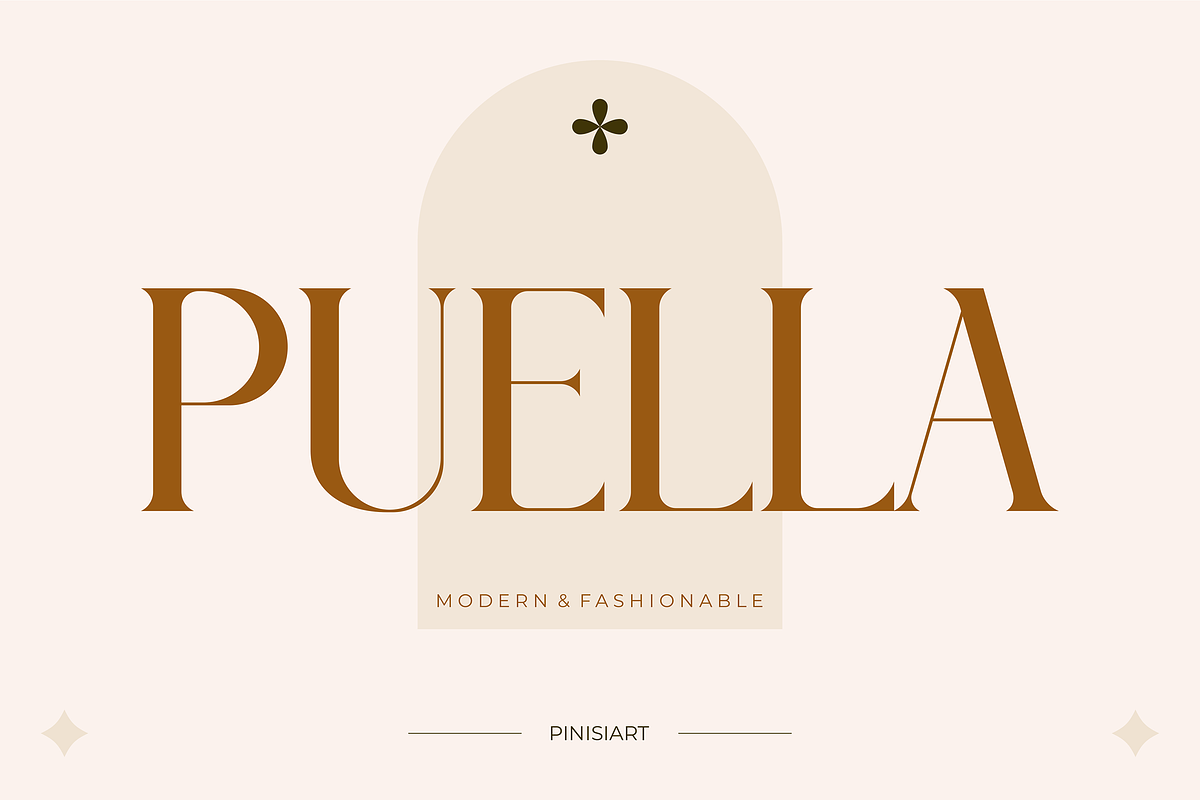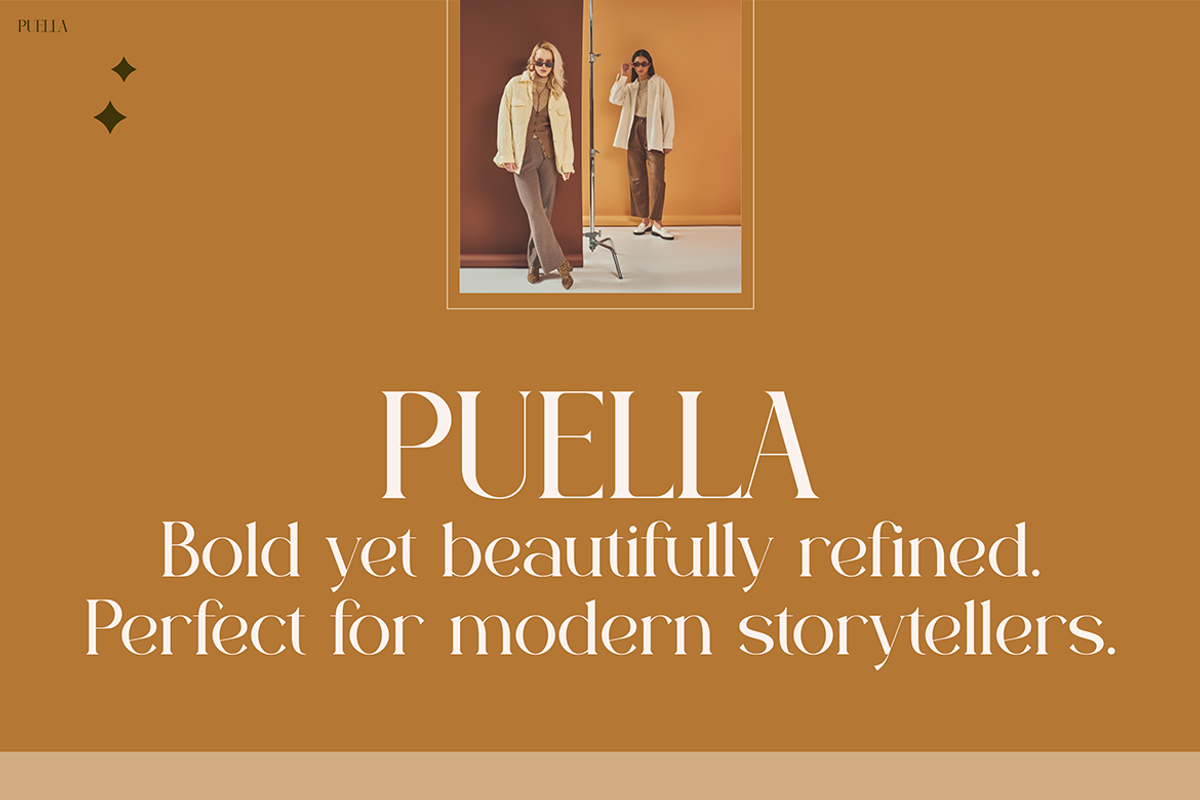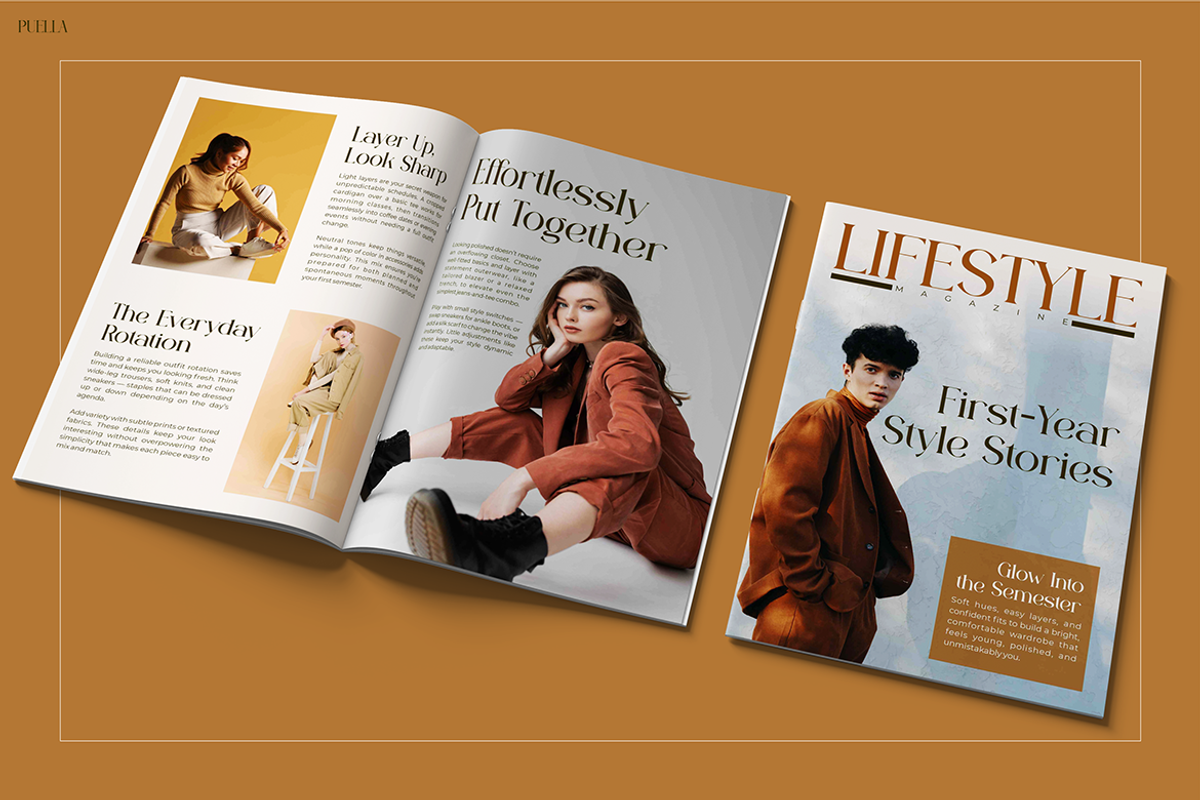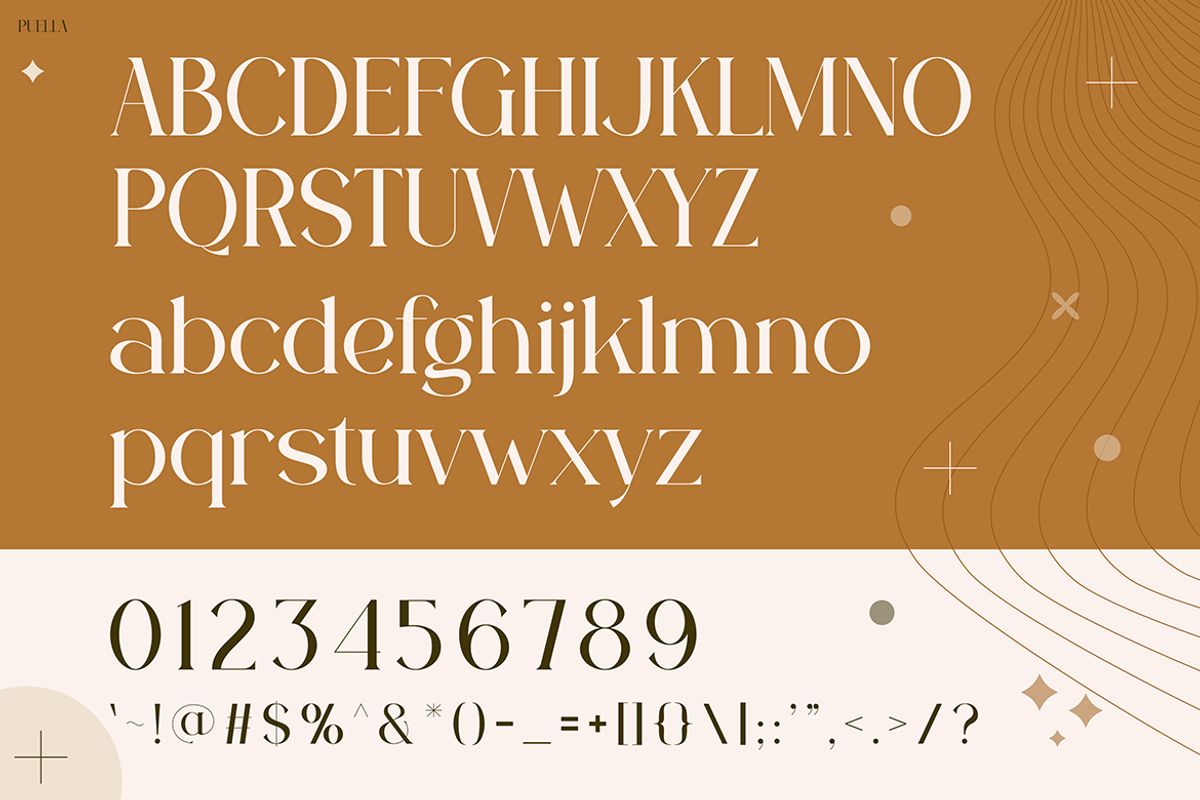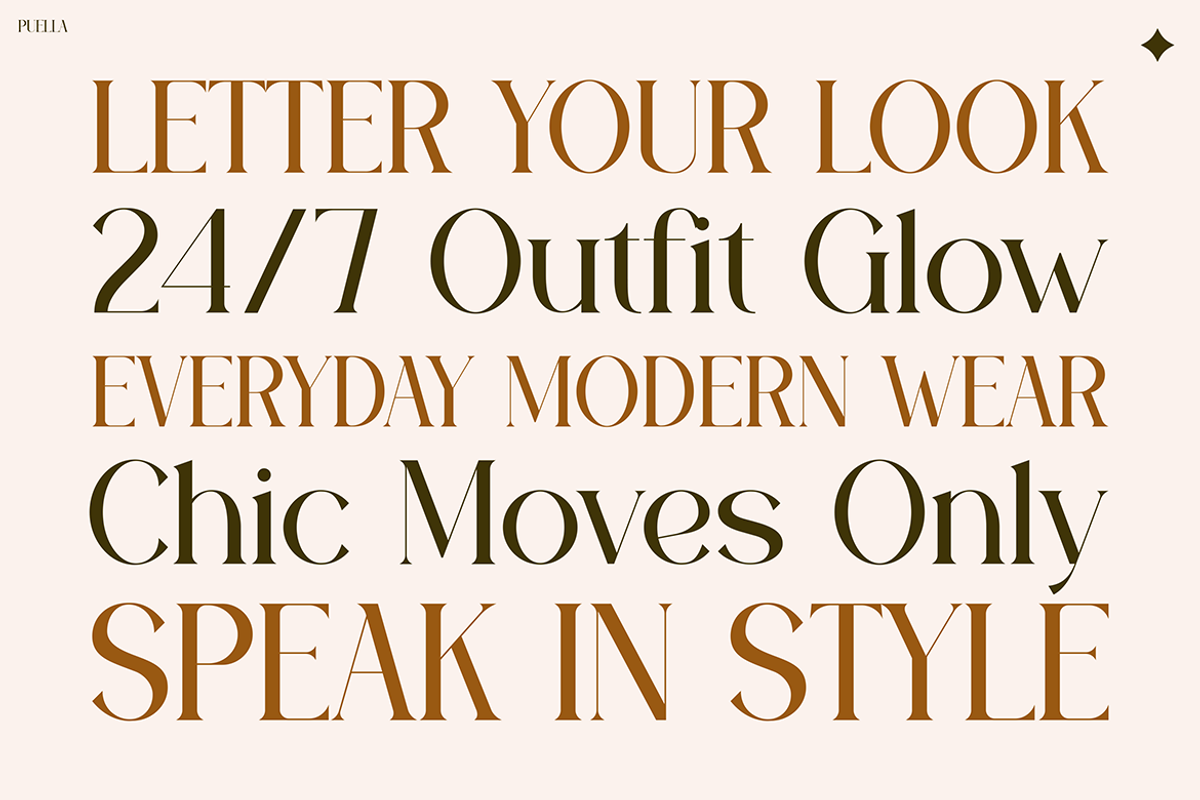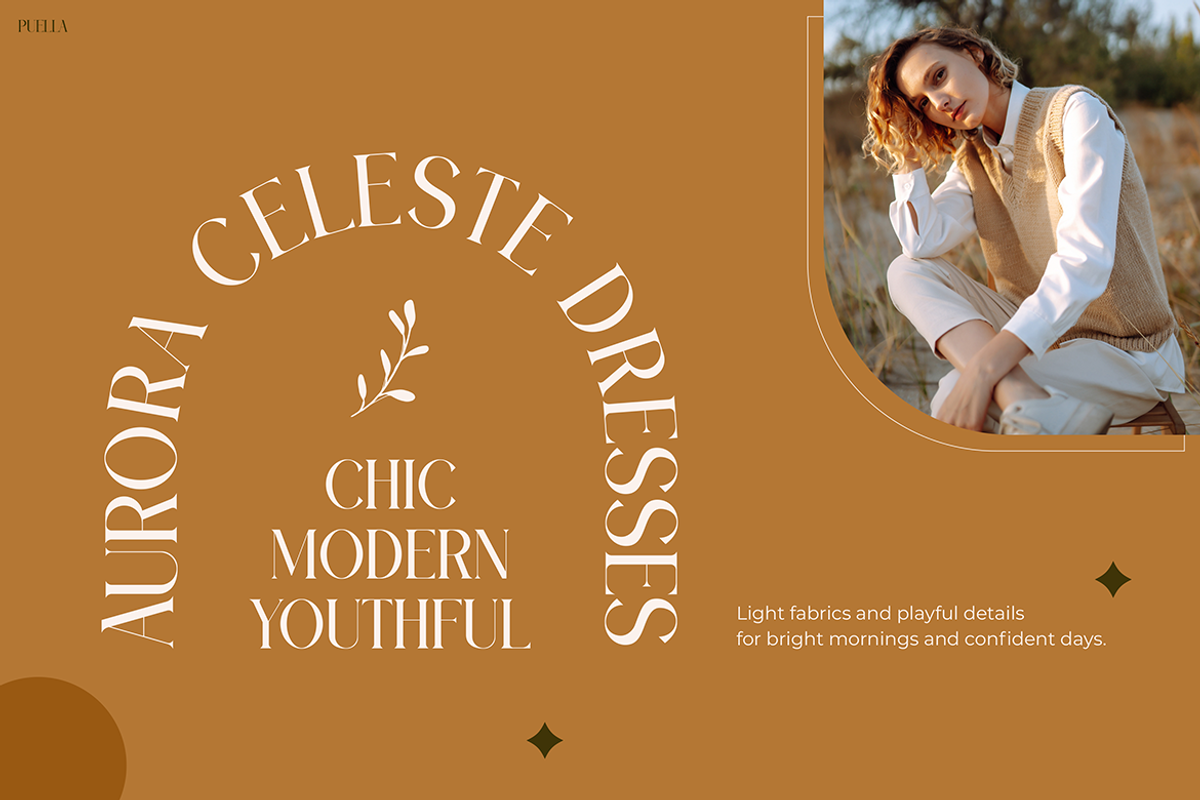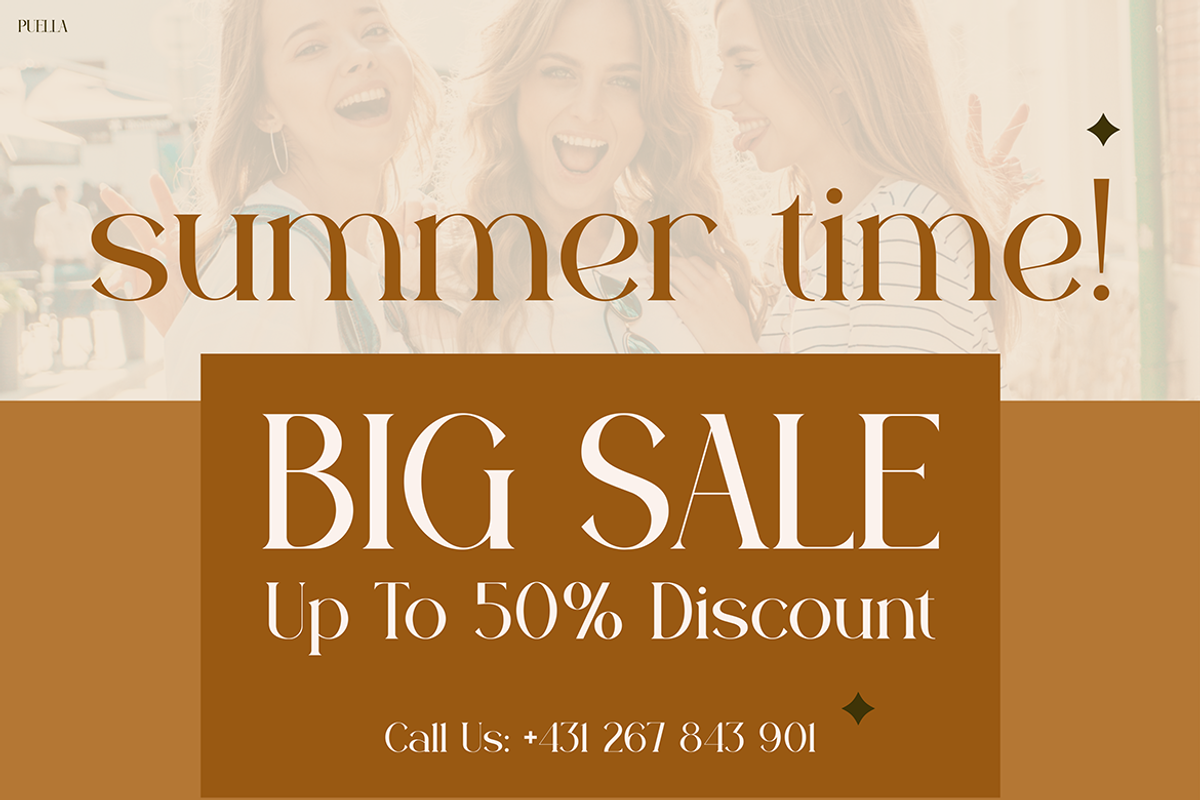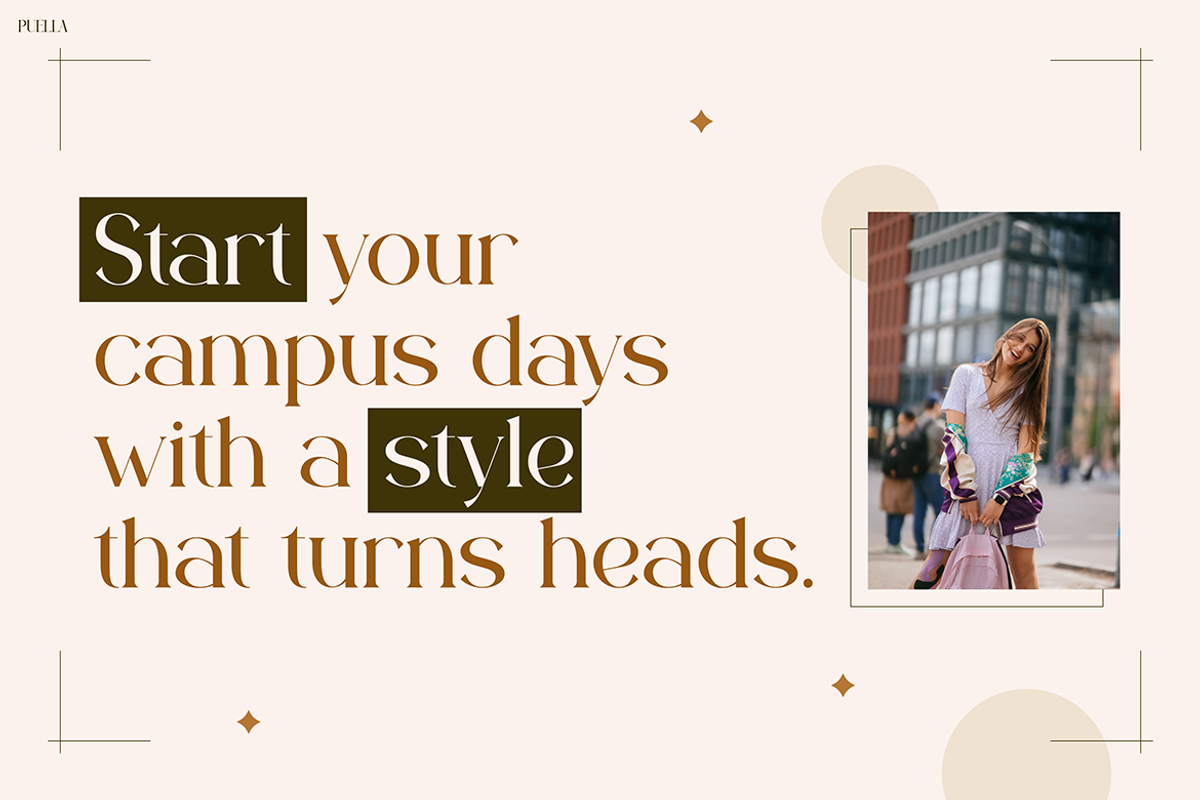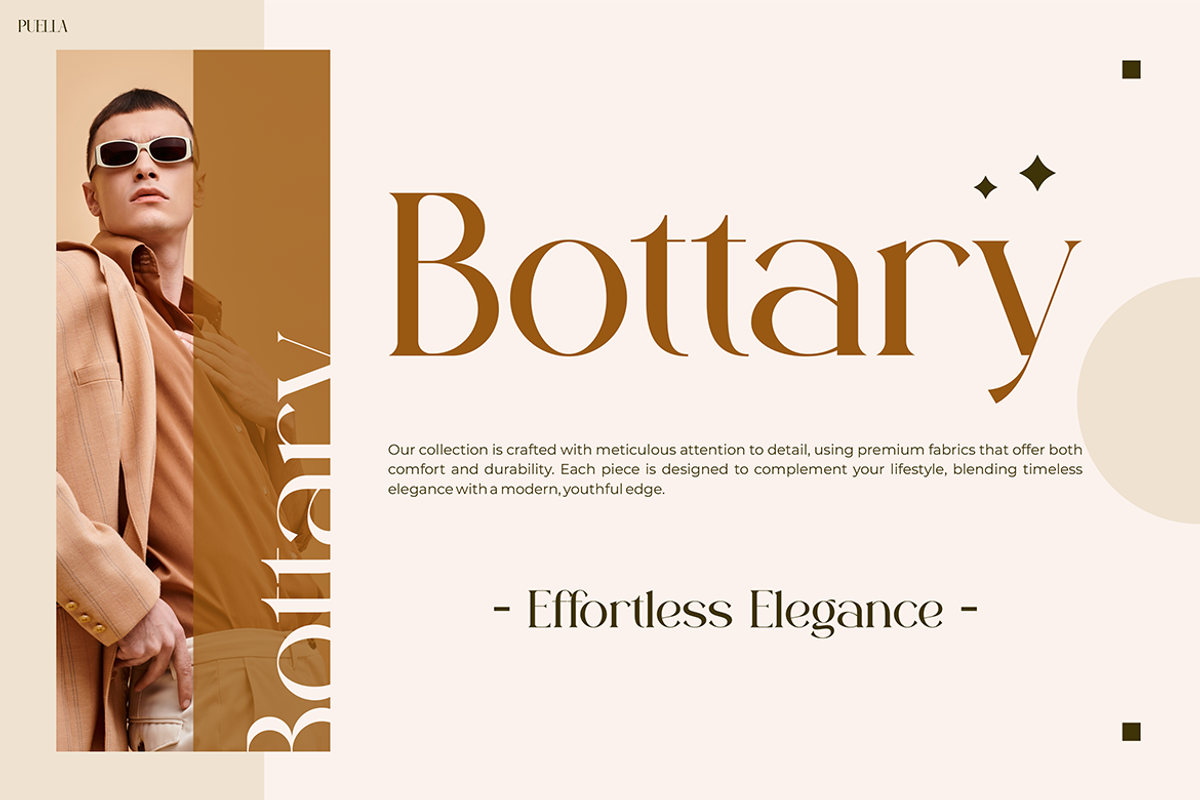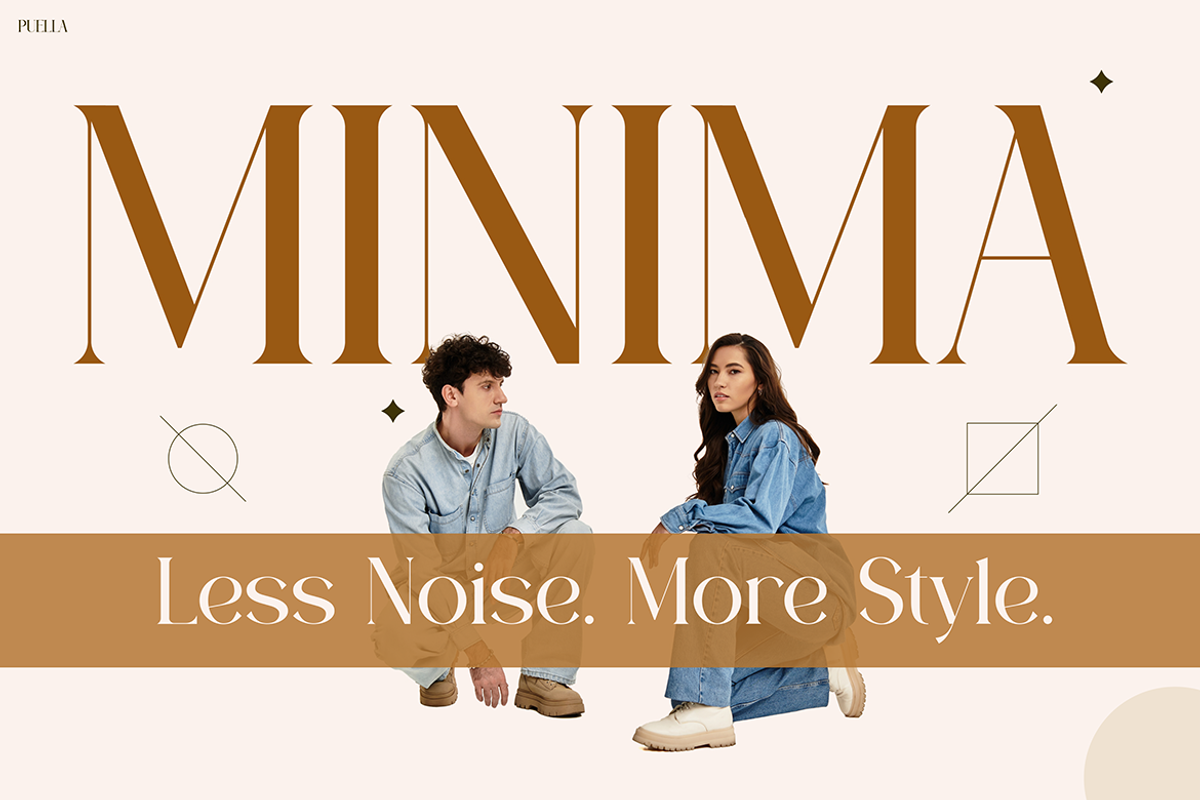
Puella
Instagram Font Puella – Elegant, Modern, and Timeless Instagram Font Puella is a sophisticated typeface that blends modern minimalism with timeless elegance, making it perfect for creating a stylish and professional visual presence. Its sleek letterforms, balanced proportions, and refined curves give it a chic and fashionable vibe, ideal for brands that want to make a bold yet graceful statement. Moreover, the font carries a luxurious aesthetic, effortlessly catching the eye while remaining versatile for multiple design purposes. Whether used in large headlines or smaller body text, Puella delivers a clean, confident look that elevates any creative project.
With its harmonious mix of contemporary and classic design, Instagram Font Puella is not just a font—it’s a visual identity tool. In addition, the graceful serifs and subtle contrasts in stroke thickness create a unique texture that stands out in both print and digital formats. As a result, it becomes an excellent choice for branding, social media graphics, editorials, and high-end marketing campaigns.